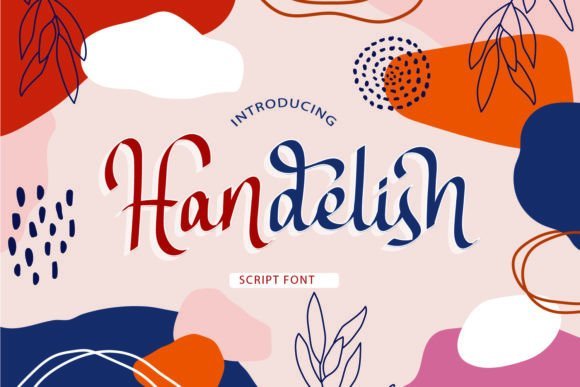
Discover the Timeless Charm of Handwritten Script Fonts
Have you ever been browsing through a vintage bookstore and stumbled upon an old novel with beautiful, handwritten script text? The unique charm and character of those fonts often leave a lasting impression, making us wonder how we can recreate that magic in our own designs. For designers and creatives, the quest for the perfect handwritten font is an ongoing one.
Enter the Handelish Font, a modern and cool handwritten script font that’s sure to capture your heart. With its incredibly distinct and timeless style, this font is perfect for creating spectacular designs that stand out from the crowd. Whether you’re a graphic designer, a blogger, or a social media enthusiast, the Handelish Font is a valuable addition to your toolkit.
Handelish Font Key Features
- Font Family: Handelish, Handelish Bold, Handelish Italic, Handelish Bold Italic
- Unique Characteristics: Distinctive, elegant script font with a touch of classic flair; ideal for formal invitations, wedding stationery, and luxury branding
Handelish Font Review
First off, let me say that the Handelish Font is a beautifully crafted typeface that shines in its elegant and sophisticated design ✨. The font’s intricate details and ornate flourishes make it perfect for creating a luxurious and high-end feel in any design project. I particularly love the way the font’s curves and lines seem to dance together, creating a sense of movement and energy.
Another thing that works well in the Handelish Font is its versatility ✨. It’s available in a range of weights, from light to bold, making it easy to use in a variety of contexts, from headings and titles to body text and logos. The font also works well in both digital and print formats, ensuring that your designs will look great no matter where they’re displayed.
- ⚠️ The Handelish Font may be too ornate for some design projects, potentially overwhelming the viewer with too much detail.
- ⚠️ The font’s intricate details may not be suitable for projects where legibility is a top priority, such as in body text or small print.
Overall, I’m really impressed with the Handelish Font. While it may have some limitations, its unique design and versatility make it a great choice for designers looking to add a touch of elegance and sophistication to their projects. Just be sure to use it thoughtfully and in contexts where it will truly shine ✨.
Handelish Font is ideal for creating elegant and sophisticated designs, such as wedding invitations, business cards, and marketing materials. It’s also suitable for use in logos, headings, and titles where a classic and refined look is desired.